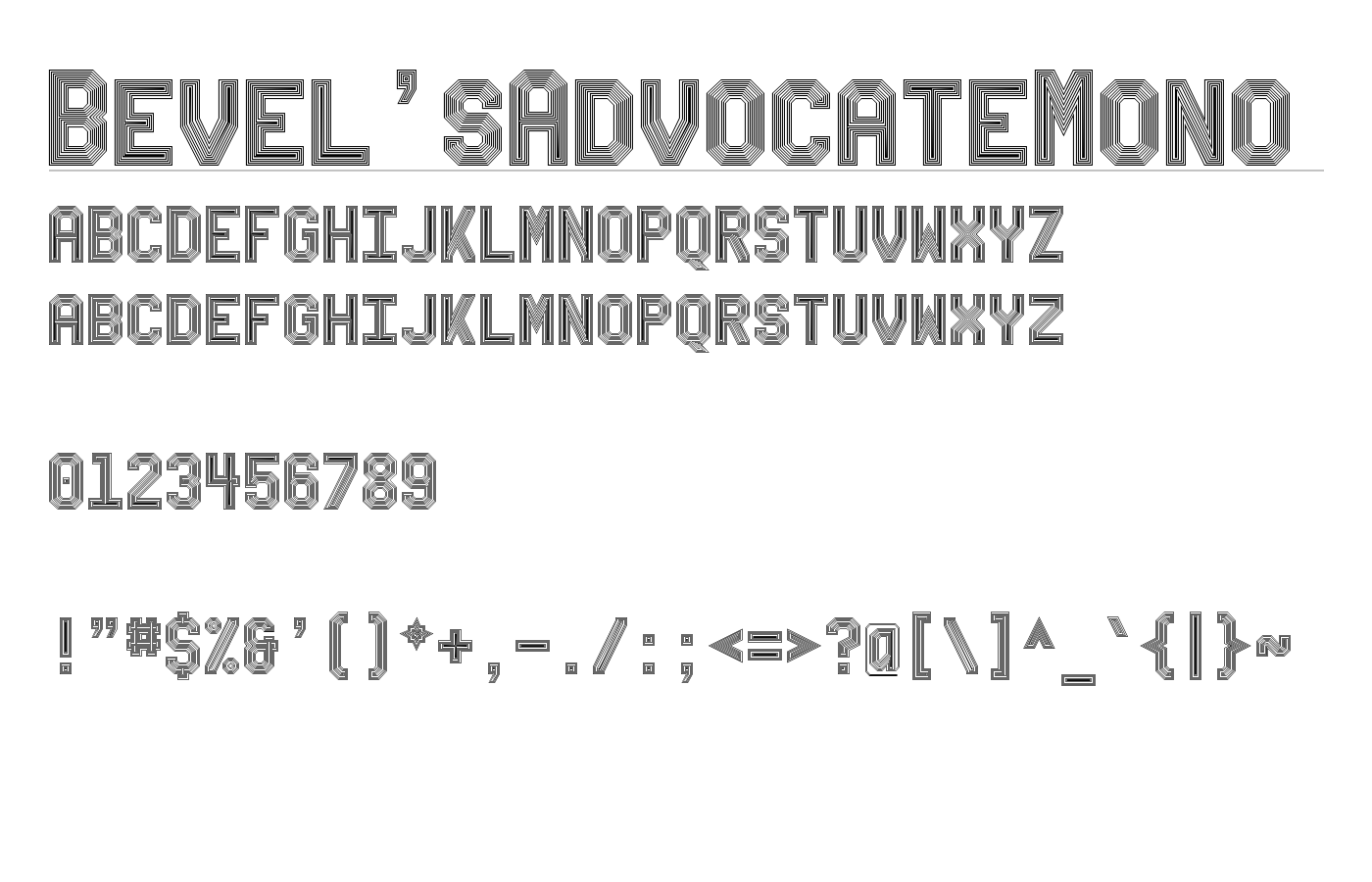
Bevel'sAdvocateMono is a distinctive, geometric monospaced font featuring layered, beveled lines that create a striking 3D effect. With its bold, uppercase-only style, sharp corners, and uniform stroke width, it exudes a modern, technical vibe ideal for eye-catching headlines, branding, and digital design projects that seek a futuristic or industrial feel. Its unique structure makes it perfect for attention-grabbing display use rather than continuous text.
Bevel'sAdvocateMono Font
About Bevel'sAdvocateMono Font
| Font family | Bevel'sAdvocateMono Font |